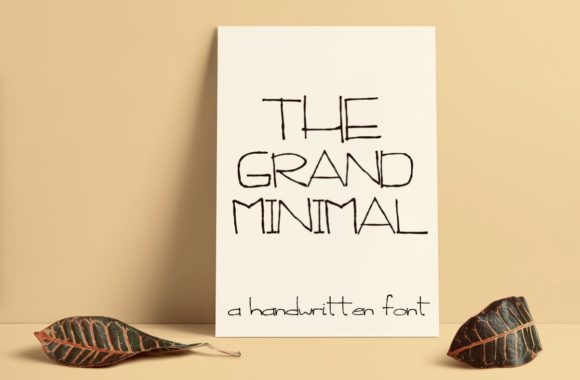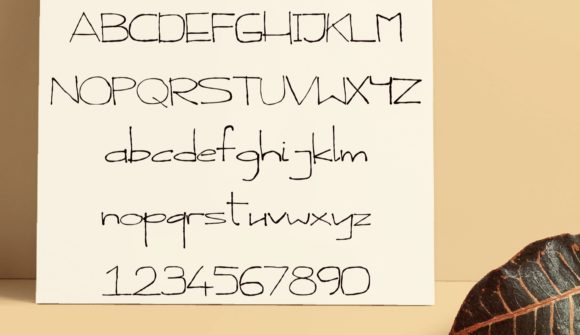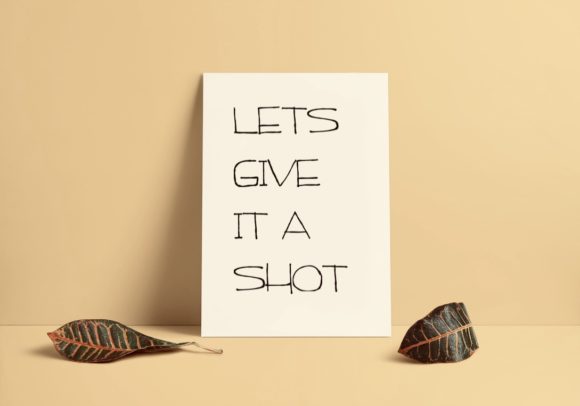
The Grand Minimal Font
About The Grand Minimal Font
As the name implies, The Grand Minimal is a casual, yet striking handwritten font! Use it for any creative project in need of an authentic touch.